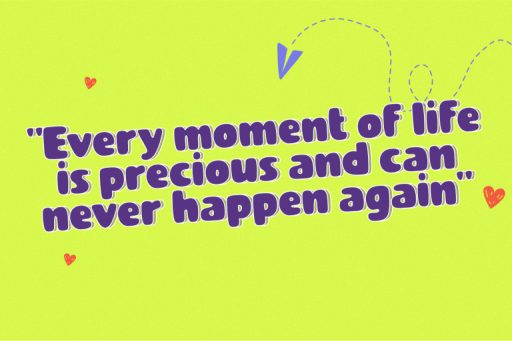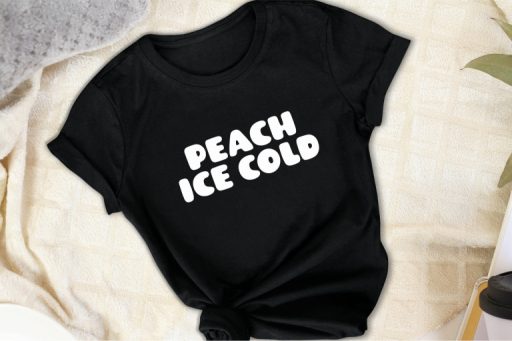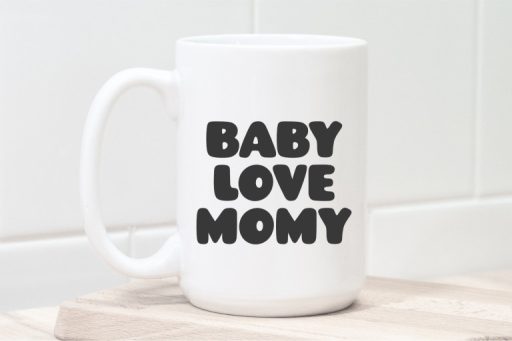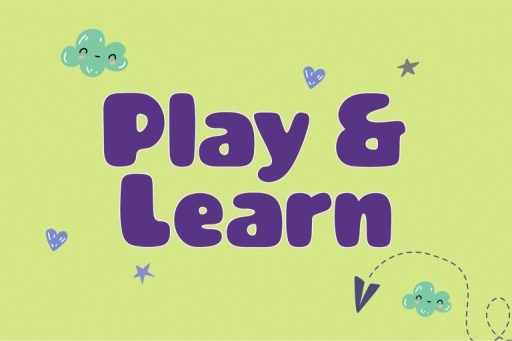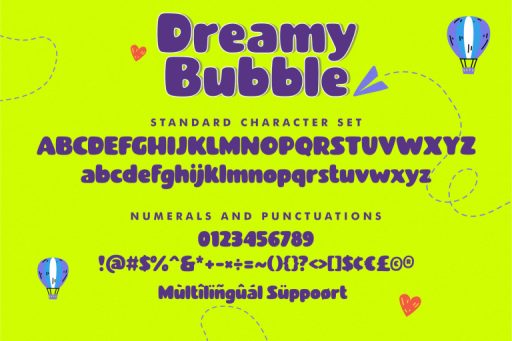
Dreamy Bubble Font - Bubble Cricut Font from Jimtype Studio
Dreamy Bubble Font
Dreamy Bubble – Bubble Display Font from Jimtype Studio
Introducing to ‘Dreamy Bubble‘ Font, where whimsy meets creativity! This cute and playful font is the perfect addition to your design toolkit, especially for kids’ projects. ‘Dreamy Bubble’ Font is like a burst of creativity, adding a touch of magic to your visual storytelling. Elevate your designs with our charming font and create a world of wonder for your audience. Explore our font collection now and let your imagination take flight on a cloud of bubbles.
Dreamy Bubble Font